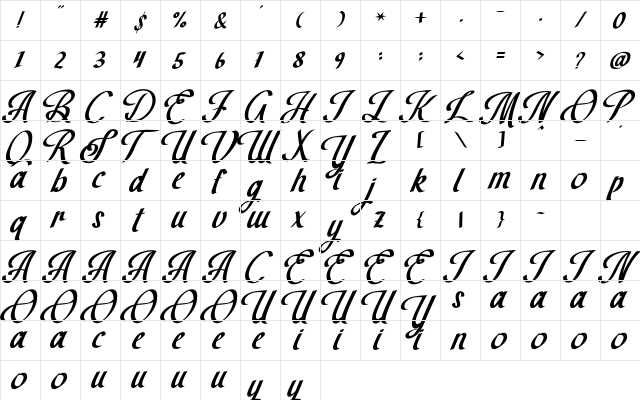
The Brown Wall Regular
| Foundry | ardyanatypes studio |
| Designer | Ardyanatypes |
Design Context for The Brown Wall Typeface
The Brown Wall is a composed and adaptable typeface that performs quietly and consistently across a wide range of design contexts.